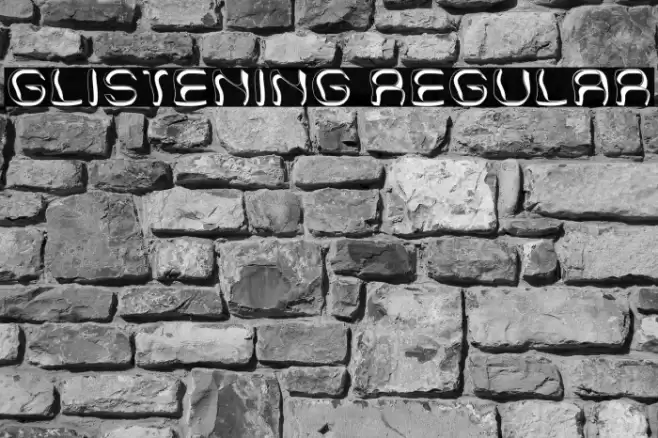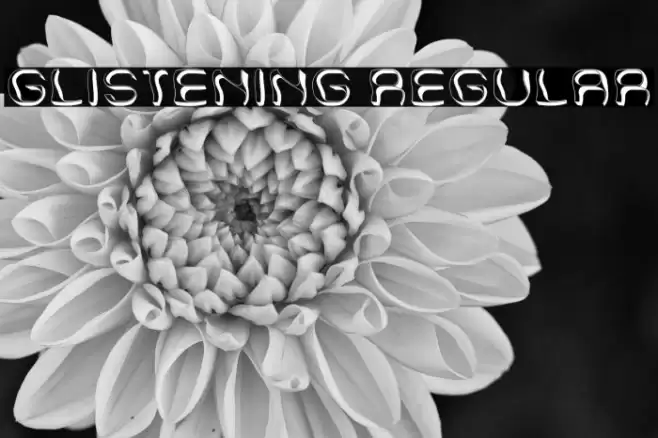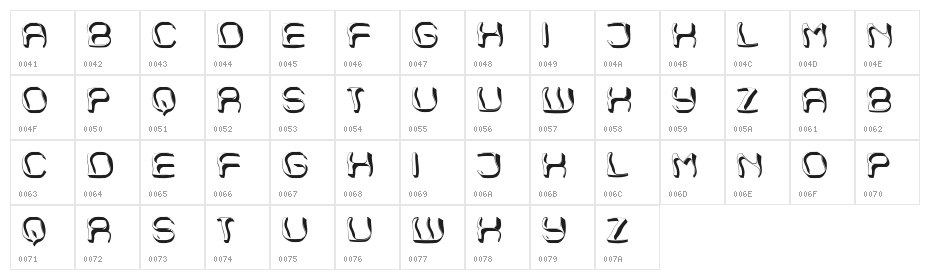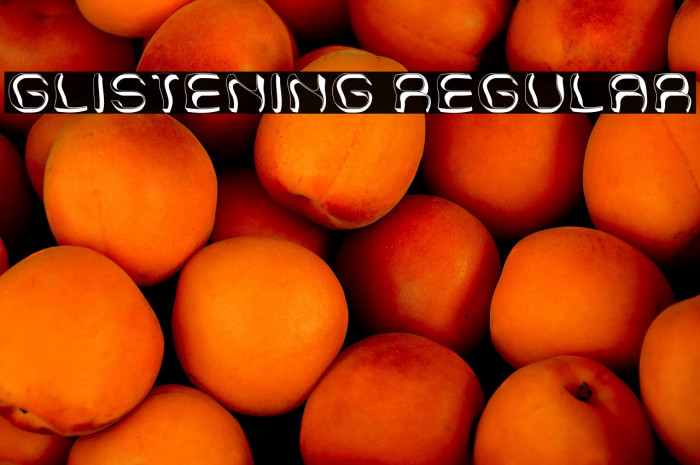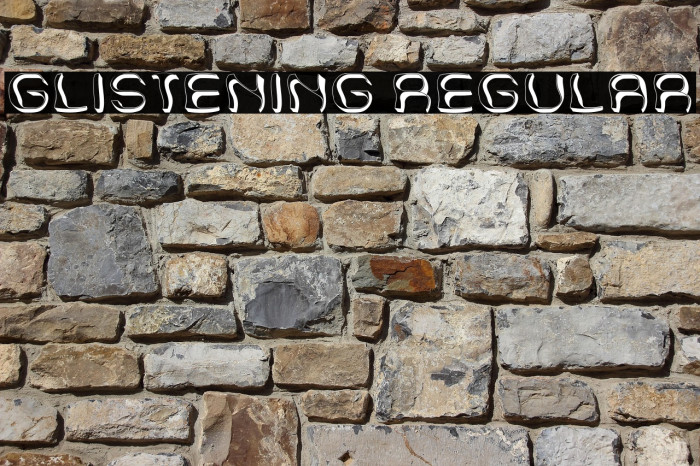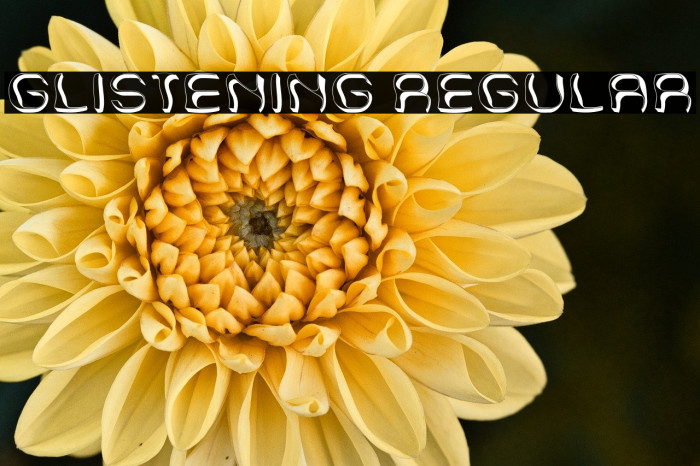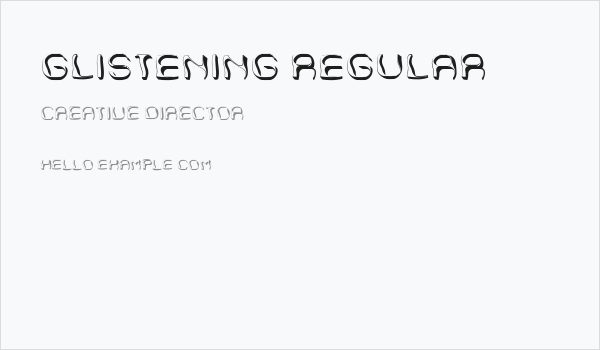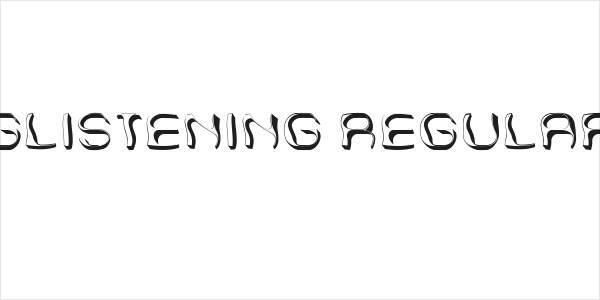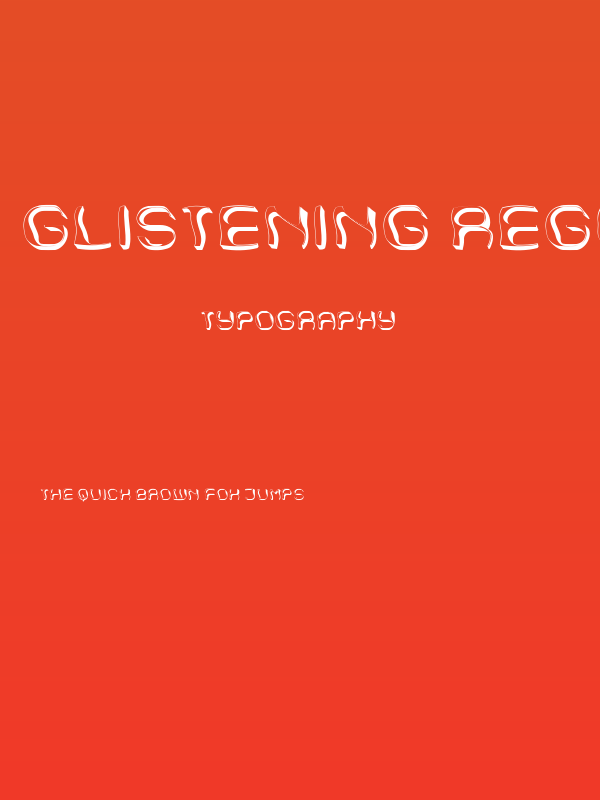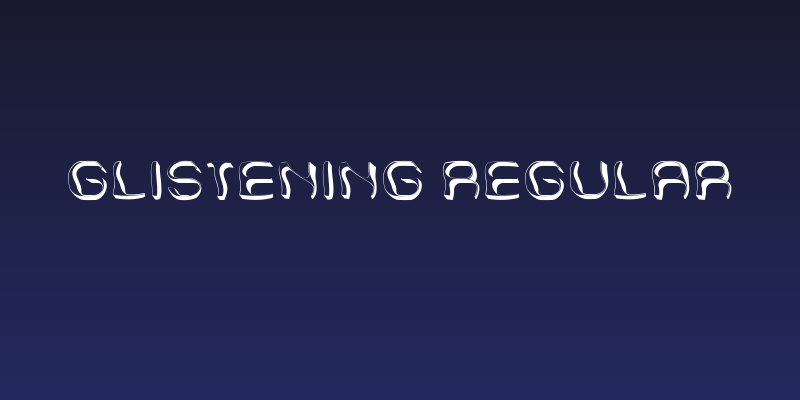
Glistening Regular Font
Glistening Regular Description
This font features a unique, glossy appearance with a reflective quality that gives it a modern and futuristic feel. The characters are bold and have a distinct three-dimensional effect, making them stand out prominently. The strokes are smooth and rounded, with a slight sheen that mimics the look of polished metal or glass. This font is highly decorative, with each letterform exhibiting a sense of motion and fluidity. The overall design is both eye-catching and sophisticated, suitable for projects that require a touch of elegance and modernity.
A glossy, modern font with a reflective, three-dimensional appearance from Uncategorized fonts.
- Proposed Projects: Ideal for branding, futuristic designs, tech-related projects, and high-end product packaging.